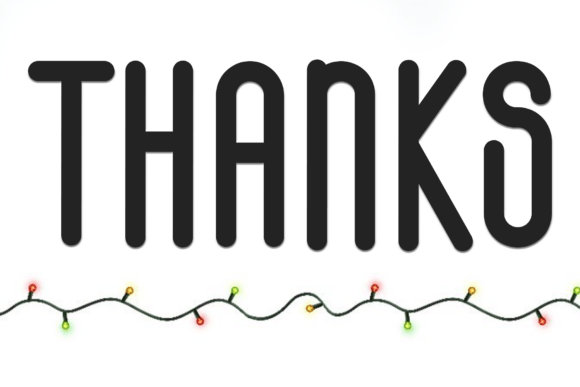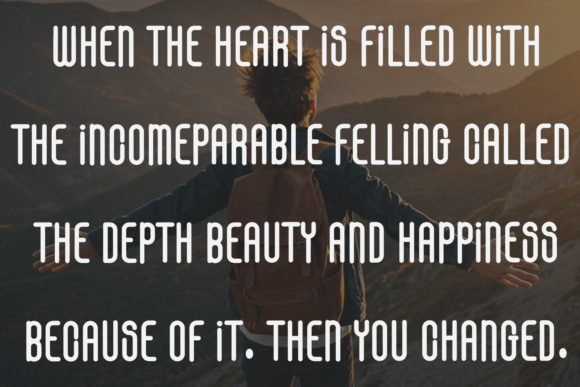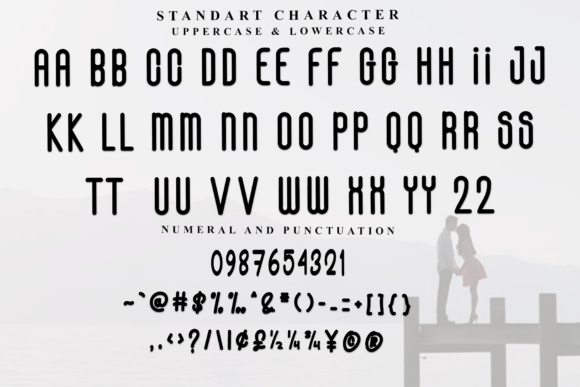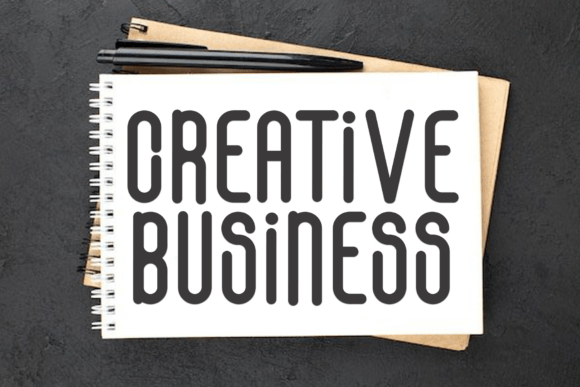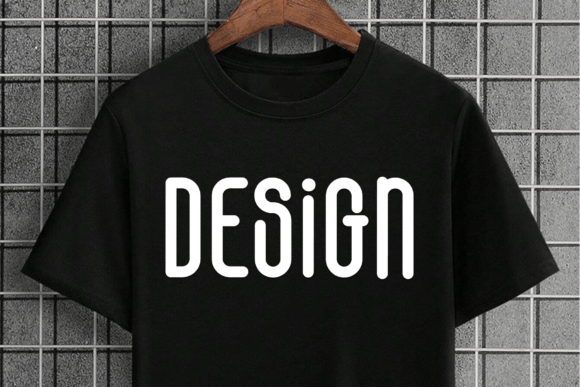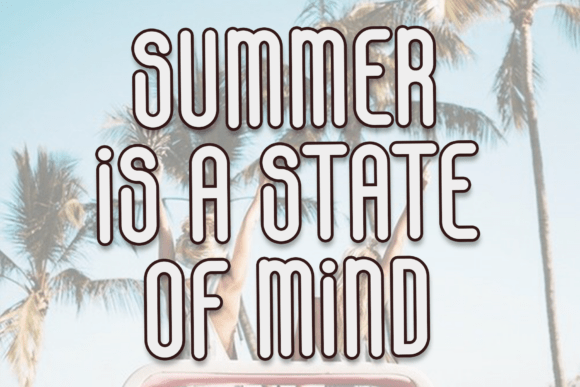
Introducing Food Vlogger Font: Elevate Your Designs with a Deliciously Unique Touch
In the world of design, fonts play a crucial role in conveying messages, evoking emotions, and capturing attention. For designers, crafters, and creative enthusiasts, finding the perfect font can be a game-changer. This is where Food Vlogger Font comes in – a beautiful, eye-catching, and versatile font designed to add a soft, unique touch to your projects. In this article, we’ll dive into the features, benefits, and uses of Food Vlogger Font, and explore how it can elevate your designs across various artistic and creative fields.
A Font that Stands Out: Distinctive Strokes and Characters
Food Vlogger Font boasts distinctive strokes that give it a special character, making it both meaningful and versatile for future use. Its unique design ensures that your designs stand out from the crowd, grabbing the attention of your audience. With a range of characters at your disposal, you can experiment with different styles, textures, and compositions to create visually stunning projects.
Perfect for Design Projects, Crafts, and Creative Works
Whether you’re a professional designer, crafter, or hobbyist, Food Vlogger Font is an excellent addition to your toolkit. Its natural font style and soft touch make it ideal for a wide range of applications, including:
- Logo design and branding
- Digital art and illustrations
Enhance Your Designs and Appeal to a Wide Audience
Food Vlogger Font’s unique design and versatility make it an excellent choice for designers and crafters who want to create engaging and appealing projects. Its soft, natural touch resonates with various audiences, making it perfect for:
- Food bloggers and influencers
- Lifestyle and wellness brands
- Art and craft communities
- Small businesses and entrepreneurs
In conclusion, Food Vlogger Font is a beautiful, eye-catching, and versatile font that can elevate your designs, crafts, and creative projects. Its distinctive strokes, unique character set, and compatibility with various applications make it an excellent addition to your toolkit. Whether you’re a professional designer or a creative enthusiast, Food Vlogger Font is sure to inspire and enhance your artistic vision.